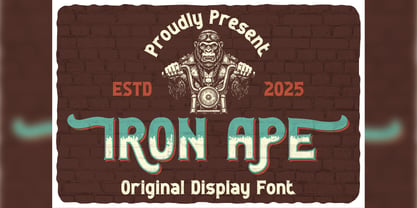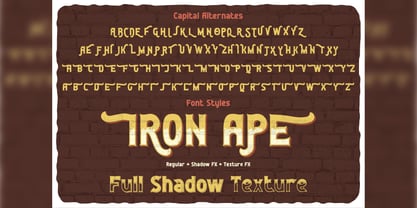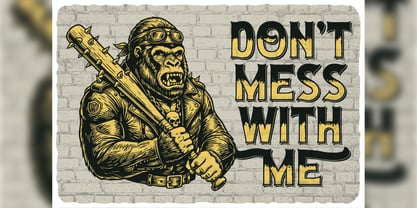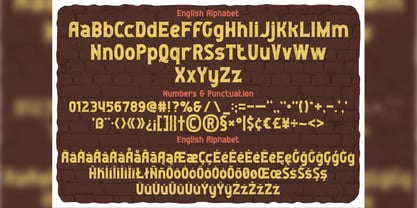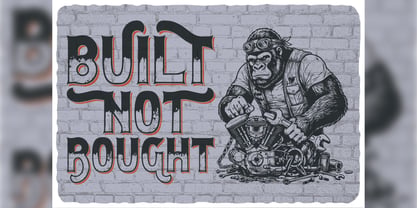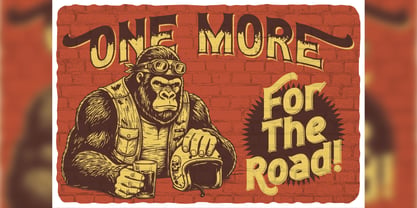
Iron Ape
Die Schriftfamilie Iron Ape wurde von Oleg Voznyy entworfen und von Vozzy veröffentlicht. Iron Ape enthält 6 Stile und Familienpaketoptionen. Mehr über diese Familie
I am pleased to present a new font called “Iron Ape”. It is a unique font for headlines, accent inscriptions, and for attracting attention! It contains additional characters, punctuation marks, multilingual characters, and a large number alternate characters (make sure your software supports this open type feature). This font will look great on your beautiful designs!